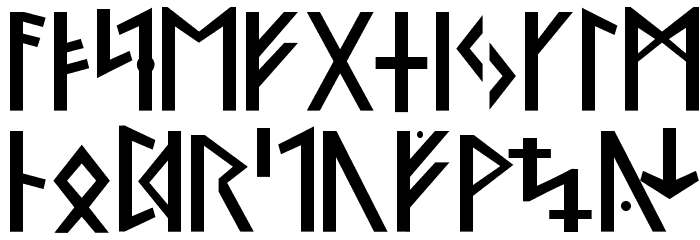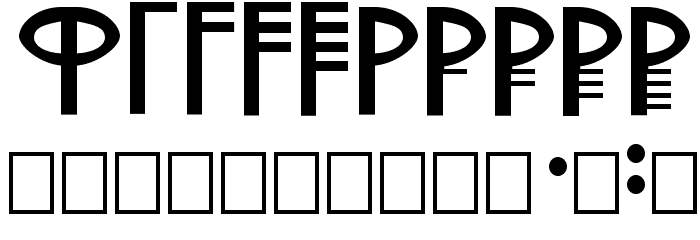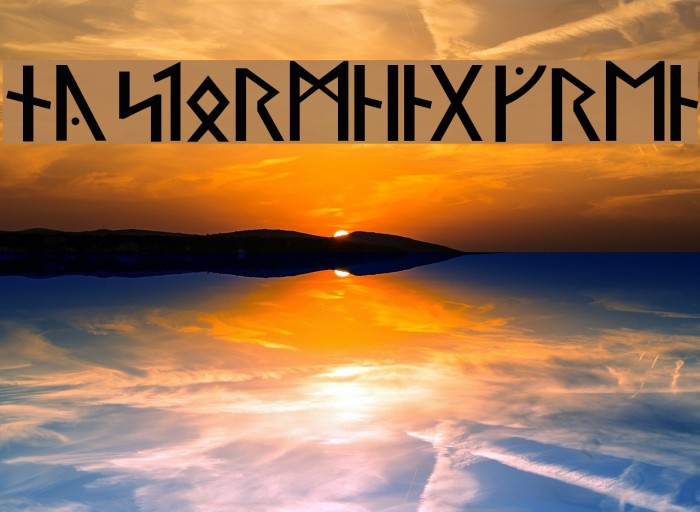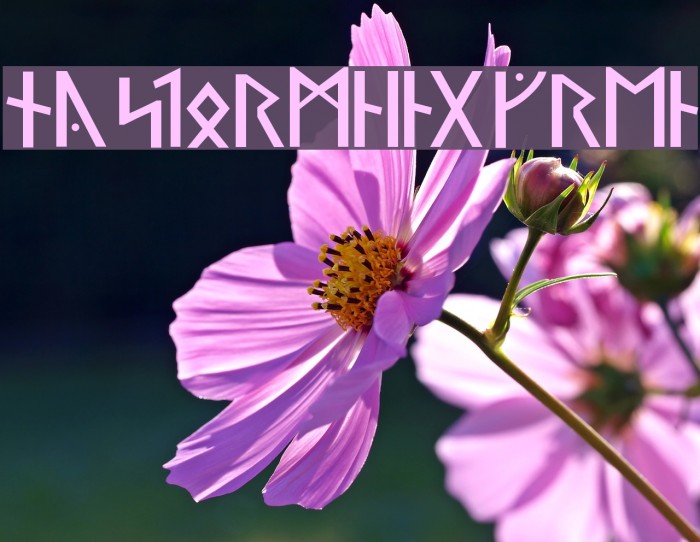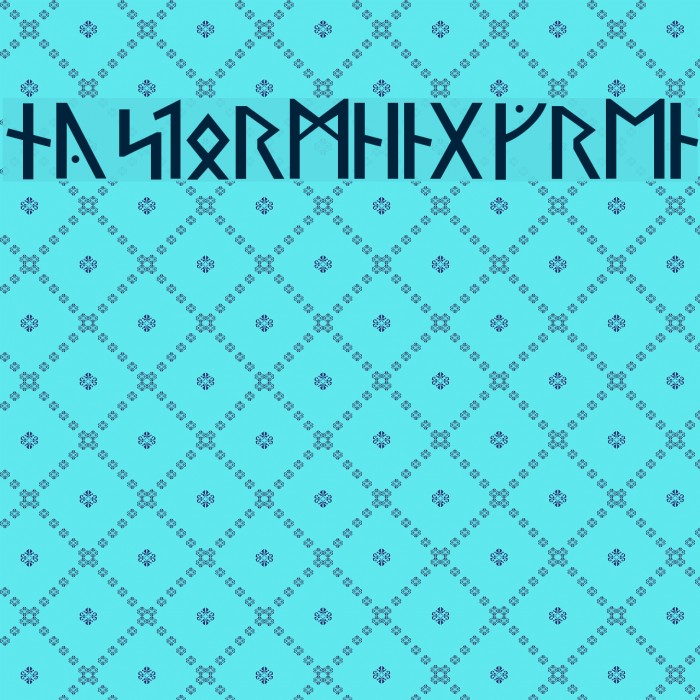
Ny Stormning Gren Font
This font is inspired by ancient runic alphabets, featuring angular and geometric shapes that evoke a sense of mystery and antiquity. The characters are bold and striking, with sharp edges and a uniform thickness throughout. The design incorporates unique symbols and forms that are reminiscent of historical inscriptions, making it ideal for projects that require a touch of the archaic or mystical. The font's distinct style is both decorative and functional, offering a unique aesthetic that stands out in any design context.
A bold, runic-inspired font with angular, geometric shapes.
- Proposed Projects: Ideal for fantasy-themed projects, historical recreations, game design, or any creative work that requires an ancient or mystical aesthetic.
- Overall Style: Vintage